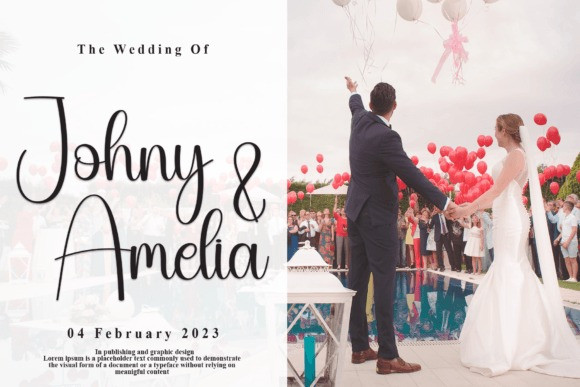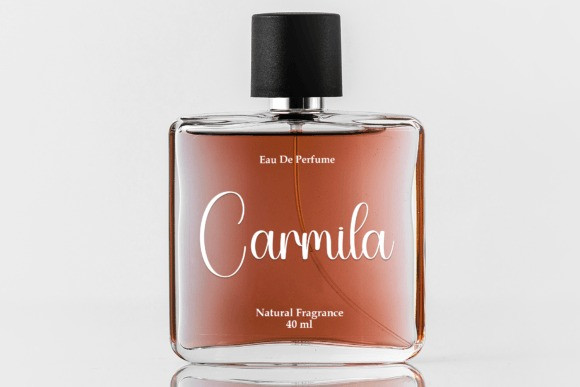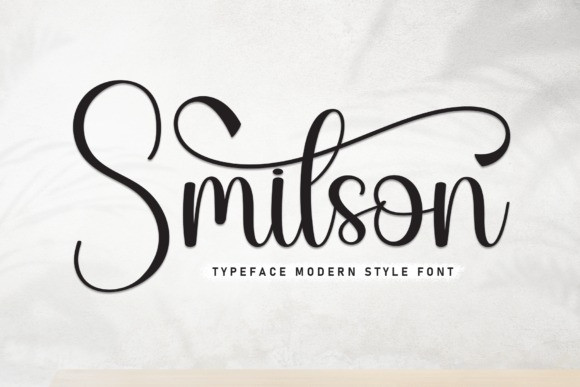
Smitson Script Font
Smitson Script Font is a gorgeous and bold handwritten font, crafted to give your headlines and logotype projects a stylish touch. This font reads as strong, confident, and dynamic and can add tons of nostalgic character to your designs.